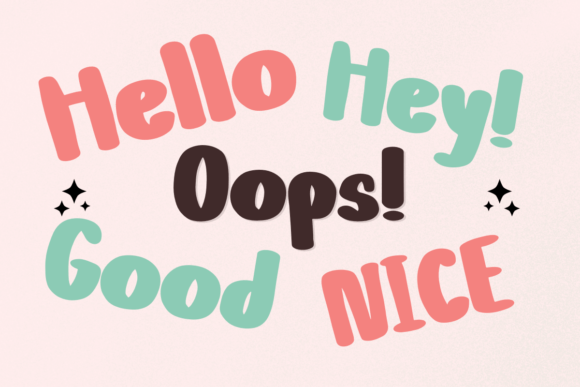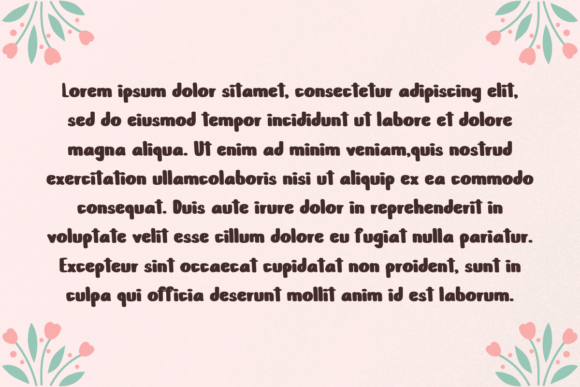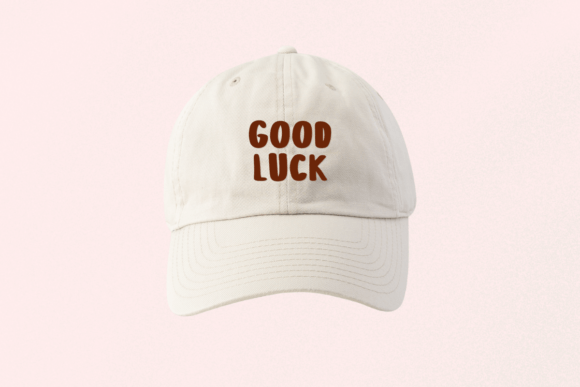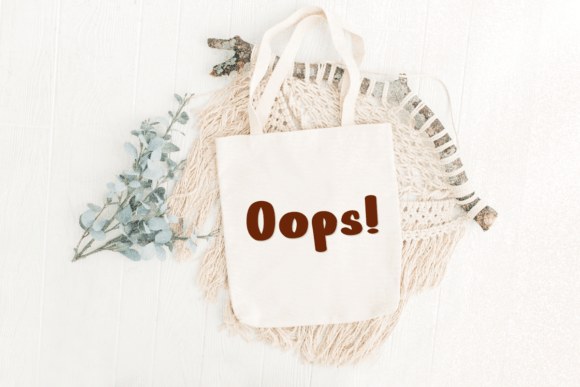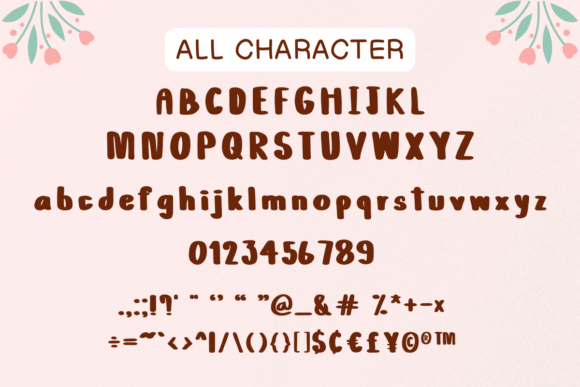
Introducing Elle Font: The Simple yet Charming Handwritten Font for Crafty Ideas
Are you a designer or crafter looking for a font that can add a touch of personality to your projects? Look no further than Elle Font, a simple and charming handwritten font that’s perfect for a variety of crafty ideas. In this article, we’ll take a closer look at Elle Font, its features, and how you can use it to elevate your designs.
What is Elle Font?
Elle Font is a beautiful handwritten font that’s designed to be easy to read and versatile. Its simple yet charming design makes it perfect for a wide range of projects, from DIY crafts to digital designs. With its clean lines and elegant feel, Elle Font is sure to become a favorite among designers and crafters alike.
Features of Elle Font
So, what makes Elle Font so special? Here are just a few of its key features:
- Handwritten design: Elle Font has a beautiful handwritten design that’s perfect for adding a personal touch to your projects.
- Simple and easy to read: Despite its elegant feel, Elle Font is easy to read and understand, making it perfect for use in a variety of contexts.
- Versatile: Elle Font can be used for a wide range of projects, from digital designs to DIY crafts.
- Clean lines: Elle Font features clean lines and a simple design that’s perfect for creating beautiful, professional-looking projects.
How to Use Elle Font
So, how can you use Elle Font in your projects? Here are a few ideas to get you started:
- DIY crafts: Elle Font is perfect for use in DIY crafts, such as scrapbooking, card making, and other paper crafts.
- Digital designs: Elle Font can be used in digital designs, such as social media graphics, blog posts, and other online content.
- Sign making: Elle Font is a great choice for sign making, whether you’re creating a sign for a business or a personal project.
- Paper goods: Elle Font can be used to create beautiful paper goods, such as stationery, journals, and other handmade items.
Tips for Using Elle Font
Here are a few tips for using Elle Font in your projects:
- Use it with other fonts: Elle Font pairs well with other fonts, so don’t be afraid to experiment with different combinations.
- Experiment with colors: Elle Font looks great in a variety of colors, so try experimenting with different color schemes to find the one that works best for your project.
- Keep it simple: Elle Font is a simple font, so keep your design simple and clean to let the font shine.
Elle Font is a beautiful and versatile handwritten font that’s perfect for designers and crafters looking to add a touch of personality to their projects. With its simple yet charming design, clean lines, and elegant feel, Elle Font is sure to become a favorite among creatives. Whether you’re working on a DIY craft or a digital design, Elle Font is a great choice. So why not give it a try and see the amazing results for yourself?